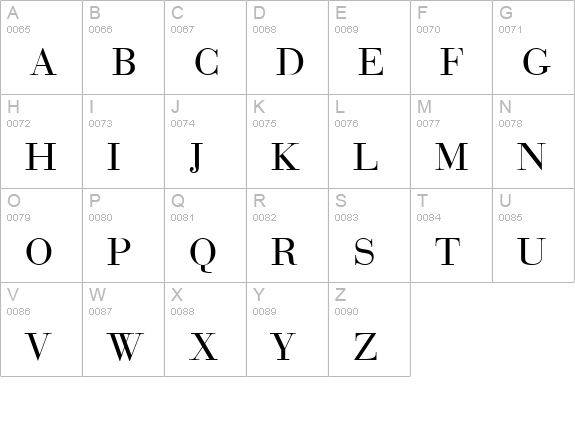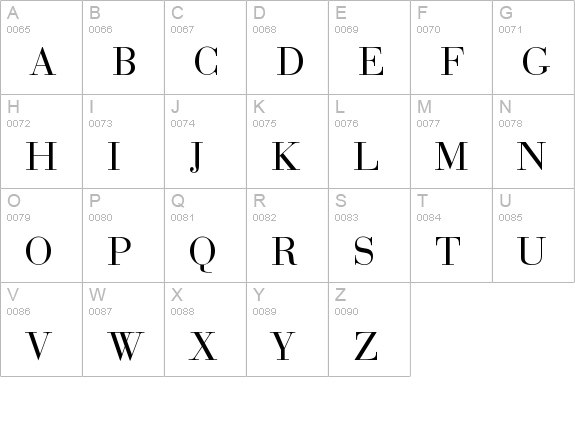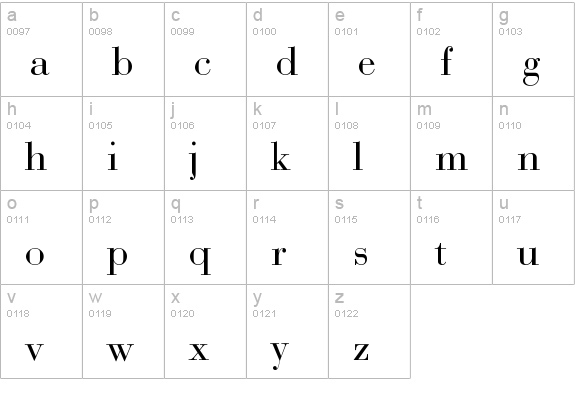
BauerBodDEE Font Details
BauerBodDEE is a modern and stylish font that exudes sophistication and elegance. Its sleek lines and clean curves make it perfect for a wide range of design projects, from branding to marketing materials. This versatile font is sure to make your text stand out and leave a lasting impression on your audience. The best part about BauerBodDEE font is that it is completely free to download at FontsMarket.com. This means you can access this high-quality font without any cost, making it an excellent choice for designers on a budget or anyone looking to add a touch of class to their projects. Don't miss out on the opportunity to elevate your designs with the BauerBodDEE font today!